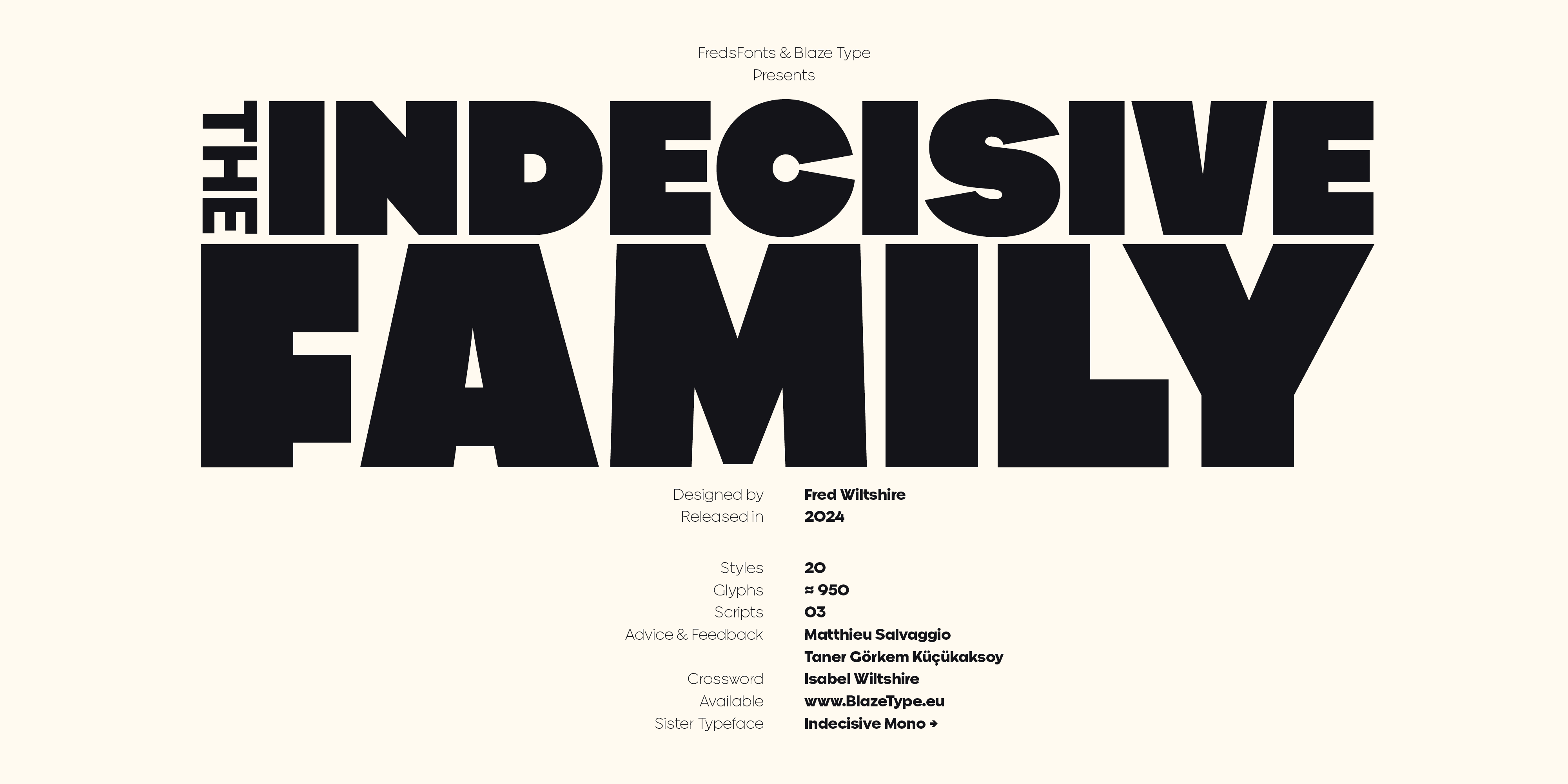
Indecisive Sans Font is perfect for experimental design studios, conceptual art projects, philosophical discussion forums, decision-making app interfaces, creative brainstorming materials, uncertain choice presentations, exploratory research publications, contemplative lifestyle brands, flexible consulting services, and adaptive design agencies that require thoughtful typography with questioning character and exploratory sophistication.
What makes Indecisive Sans Font so exciting is its intriguing embodiment of thoughtful uncertainty through deliberately variable letterforms that capture the essence of creative exploration and the beauty of open-ended possibilities. This font features subtly shifting character shapes with gentle variations and contemplative proportions that reflect the natural process of considering multiple options and embracing creative ambiguity. The exploratory design approach celebrates the journey of decision-making while maintaining excellent functionality, making it perfect for brands that want to project thoughtful consideration, creative flexibility, and the sophisticated beauty of embracing uncertainty.
The Indecisive Sans Font family includes multiple weights and styles: Light, Regular, Medium, Bold, Variable, Uncertain, and their corresponding Italic variants. Each weight maintains the signature contemplative character while offering comprehensive flexibility for exploratory design applications and thoughtful typographic expressions.
Creative exploration designers consistently choose Indecisive Sans Font Free Download for projects requiring thoughtful typography that embodies the spirit of creative uncertainty and philosophical exploration. Whether you're developing conceptual art branding, creating decision-making interface designs, designing exploratory research materials, or crafting contemplative lifestyle campaigns, this font delivers exceptional thoughtfulness and creative authenticity. The font's comprehensive character set includes questioning symbols and exploratory styling options while ensuring optimal performance across both digital and print contemplative applications, making it an essential tool for designers working on exploratory projects that demand thoughtful, uncertain, and creatively sophisticated typography solutions with contemplative elegance and exploratory intelligence.